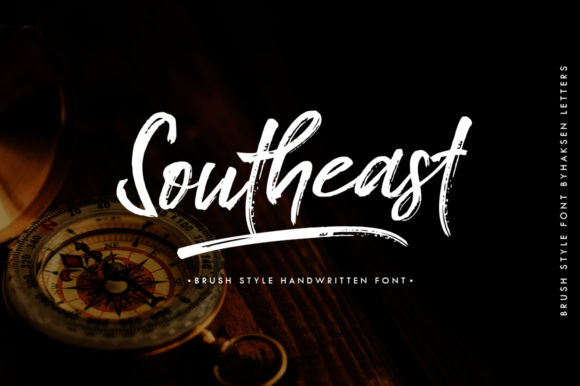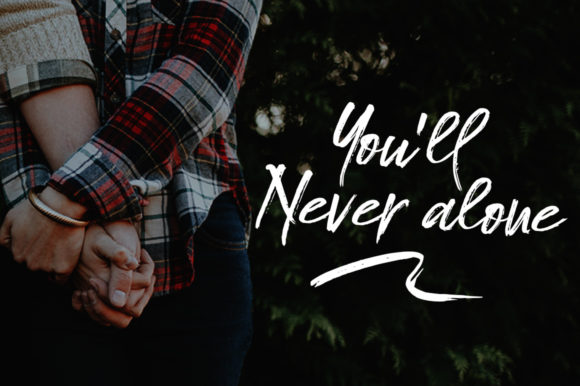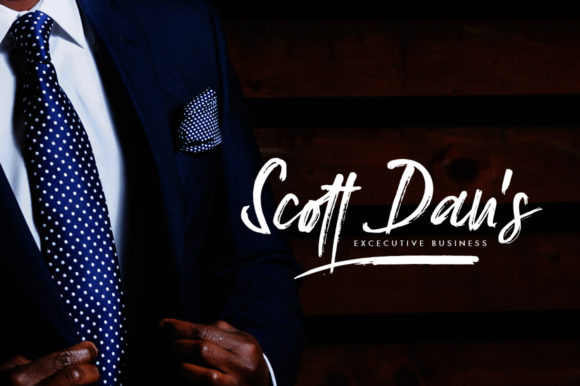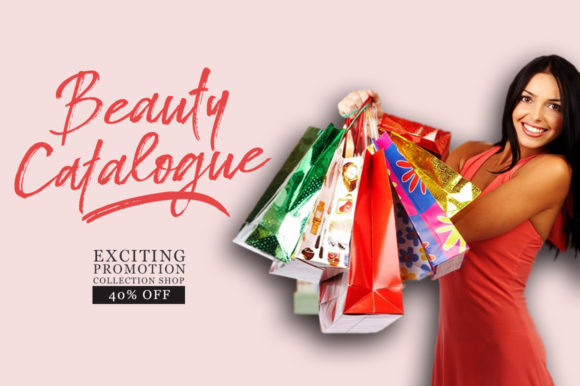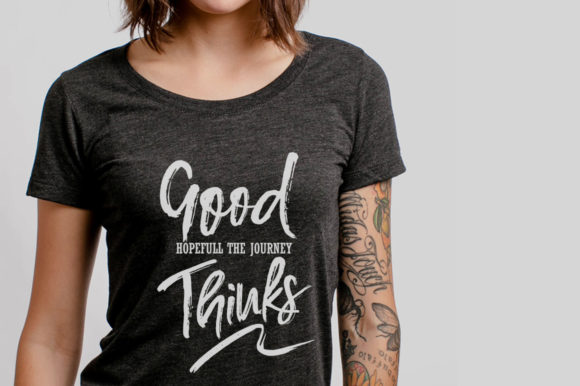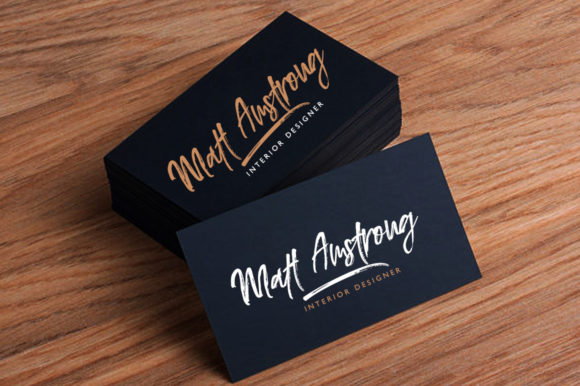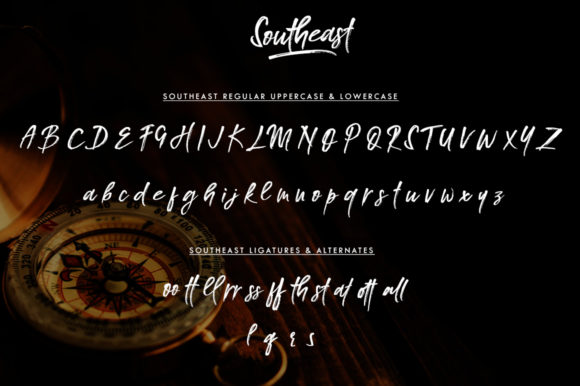
Southeast Font
About Southeast Font
The Southeast is a fresh handmade brush script. It’s suitable for greeting cards, branding materials, business cards, quotes, posters, and much more!